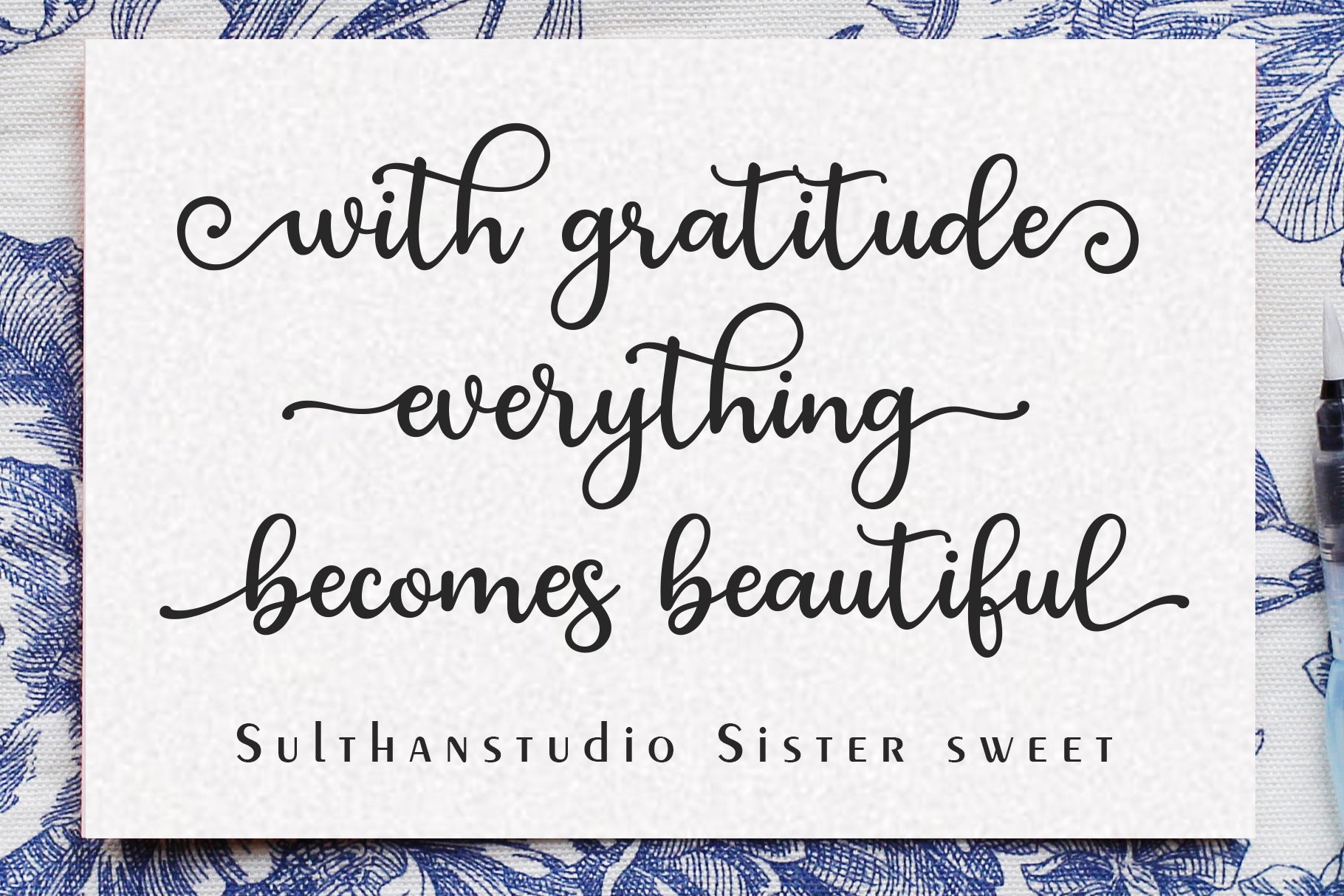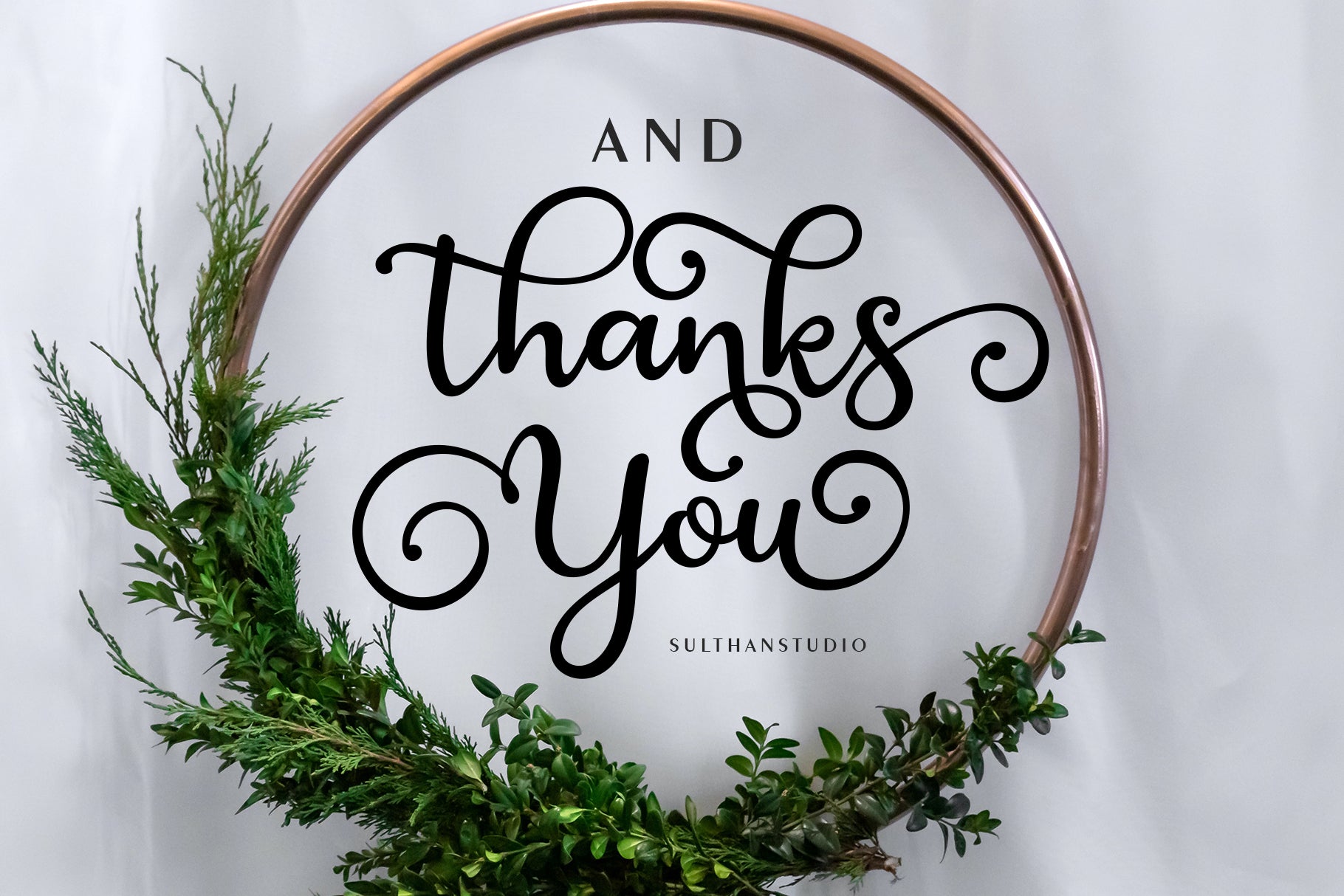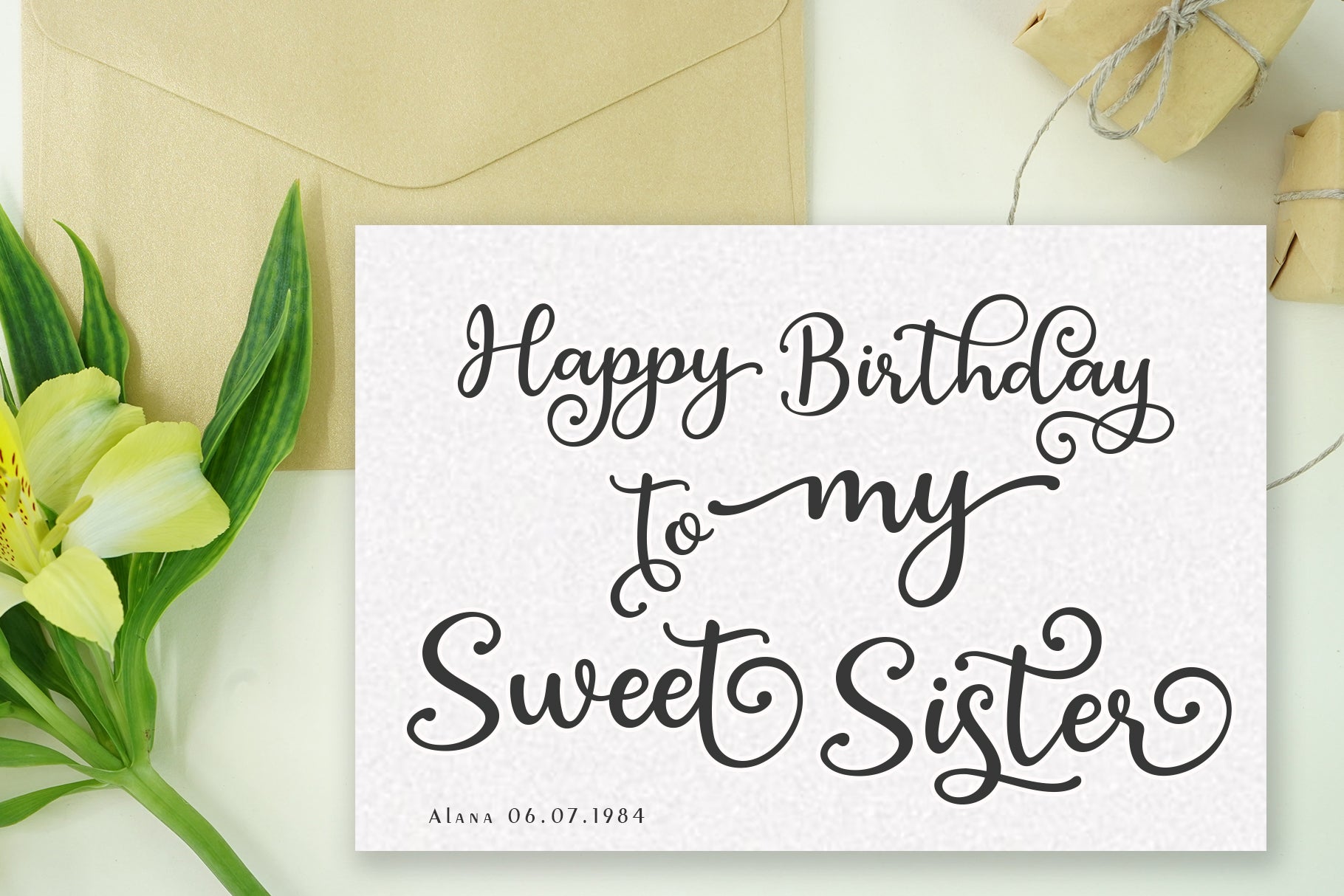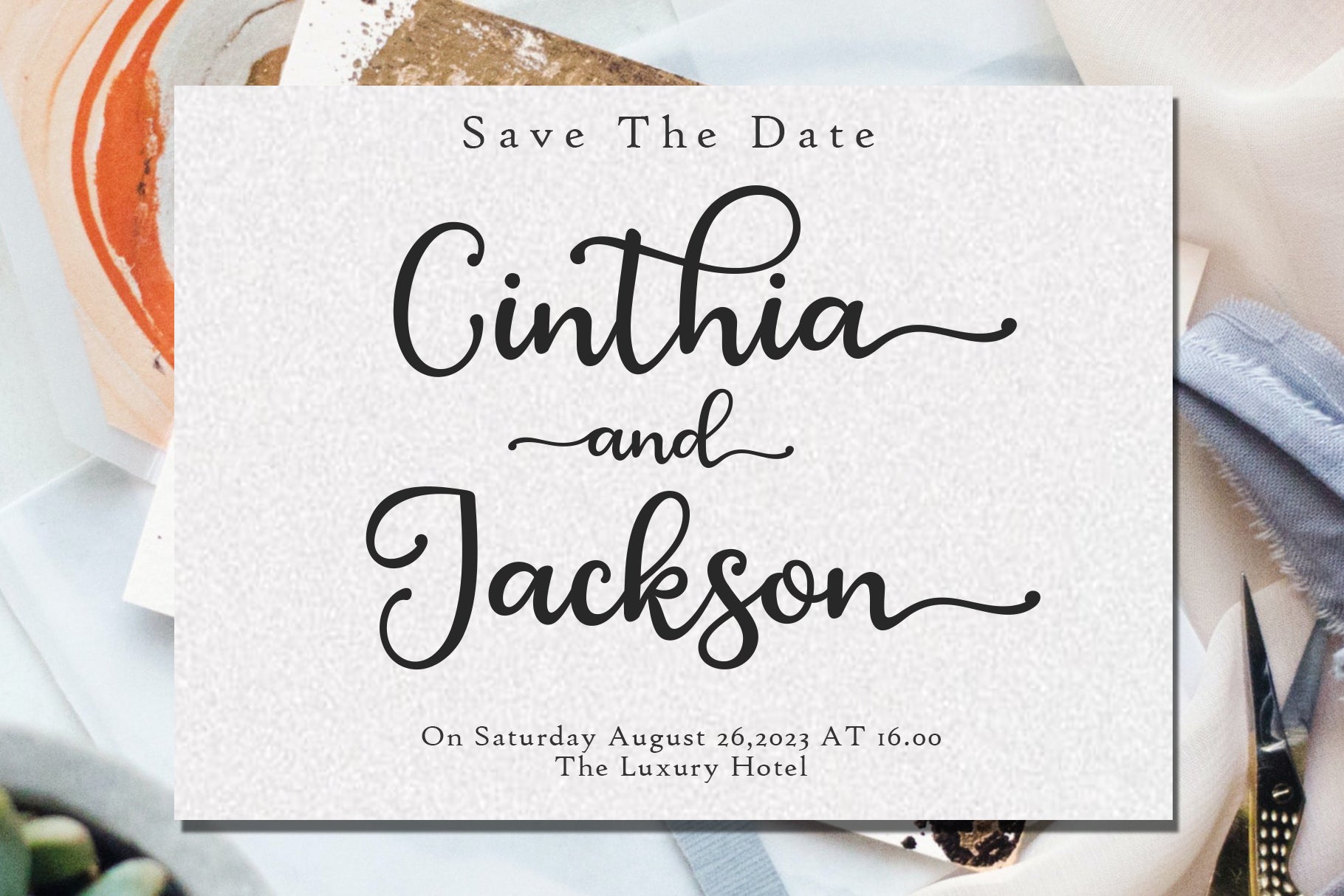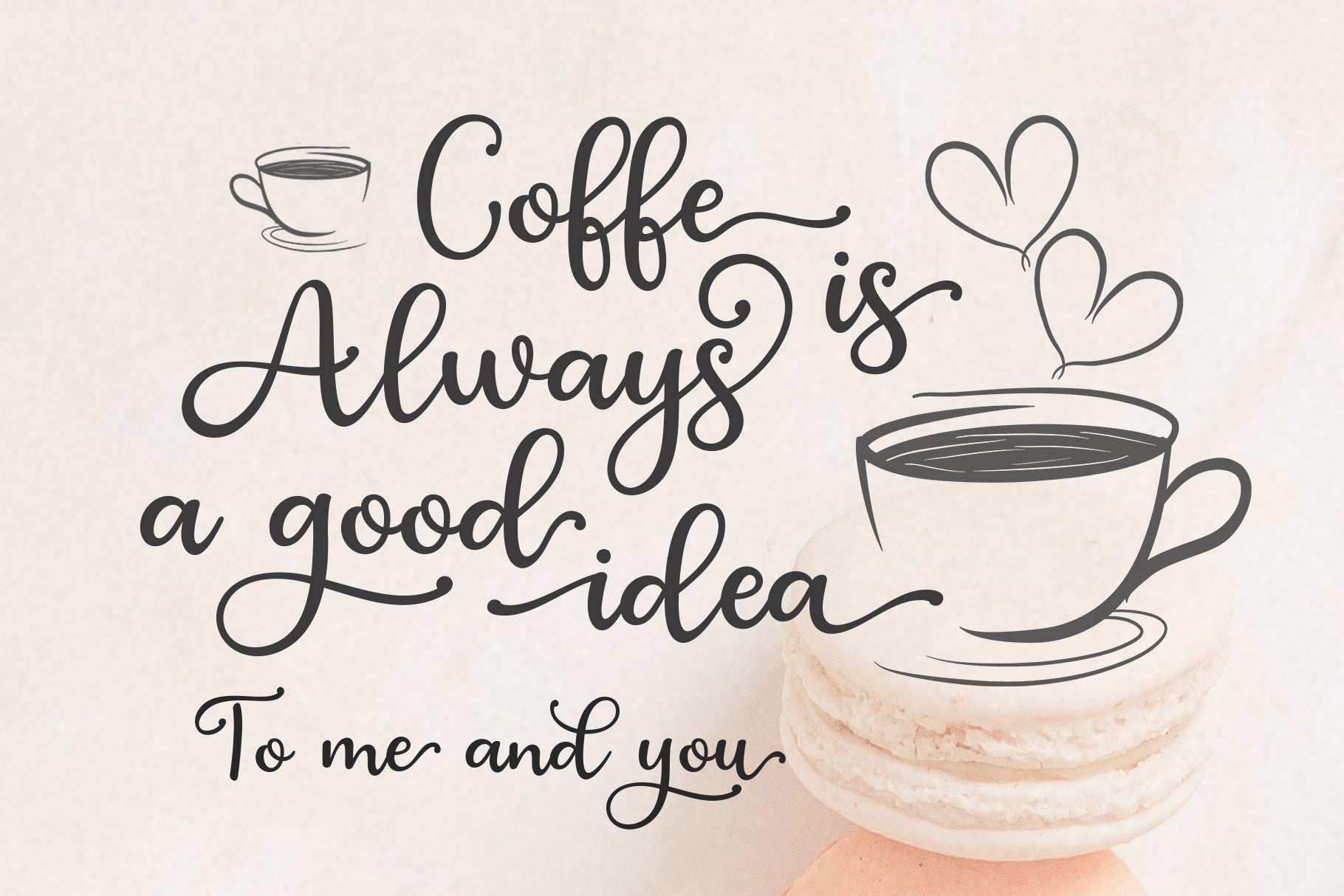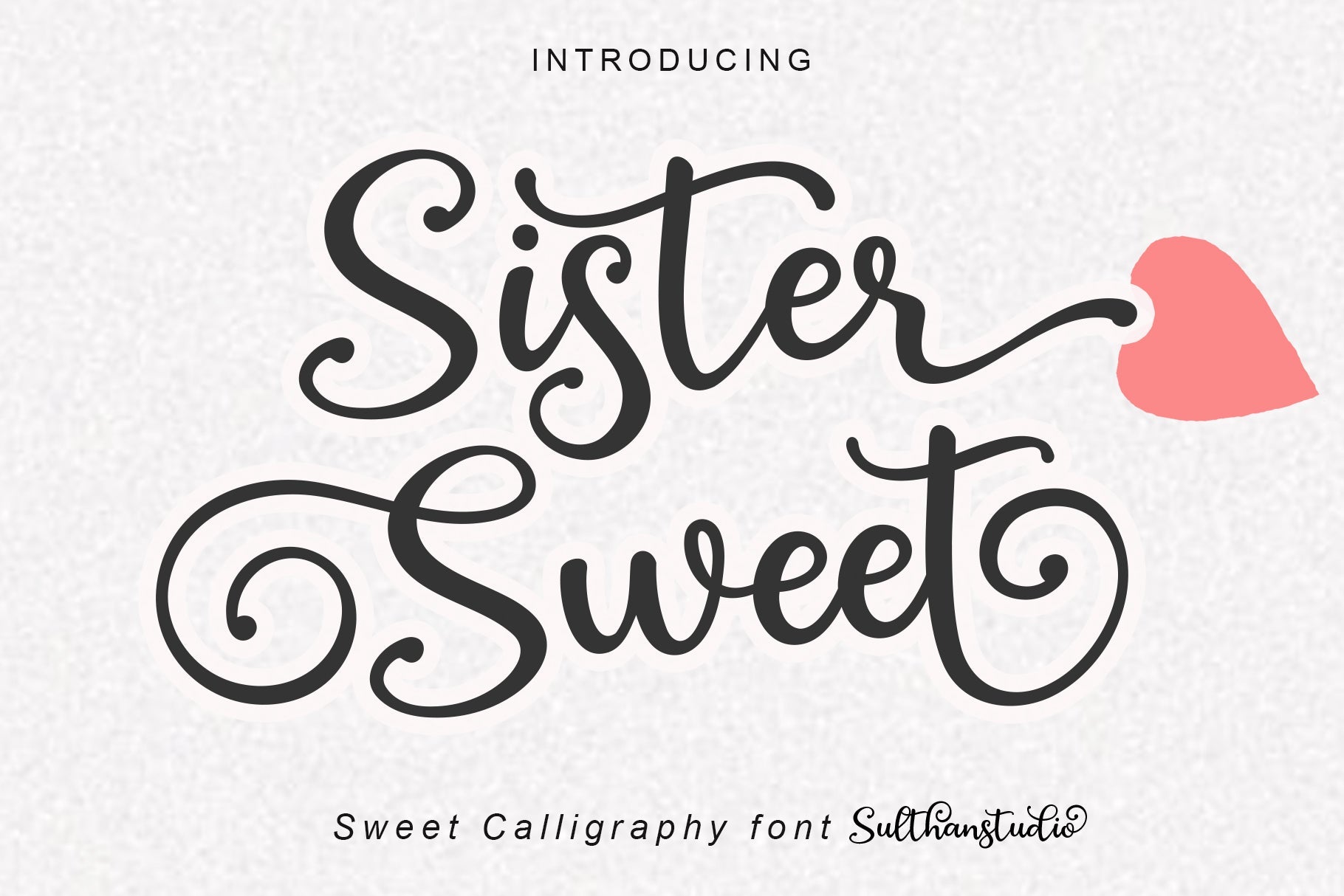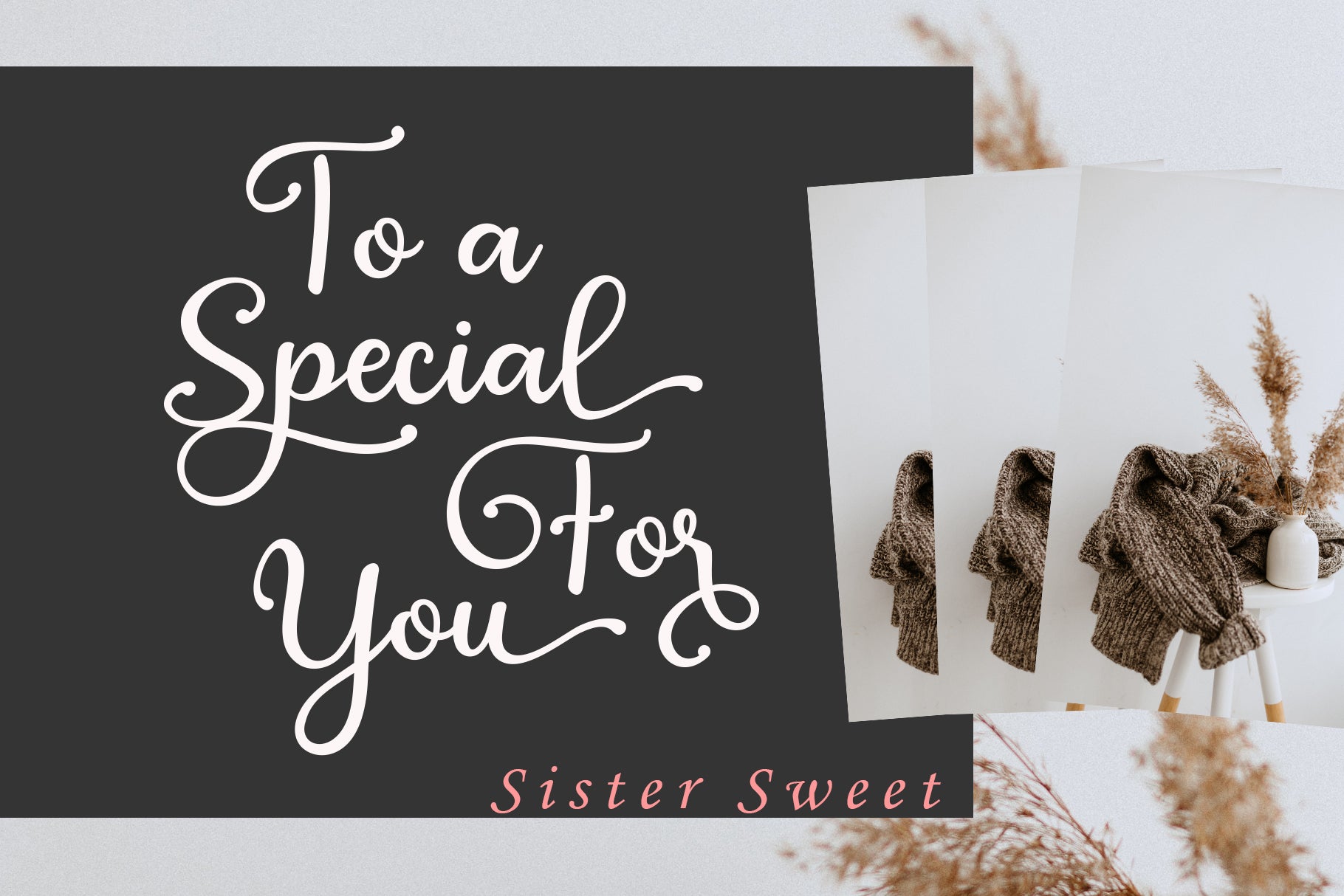
Sister Sweet
About Sister Sweet
Sister Sweet is an amazing handcrafted script font that we created in a style that is simple yet light but very classy for those of you who do work and crafts. It’s perfect for all kinds of work you do with multiple purposes like stickers, logos, wedding invitations, titles, t-shirts, letterheads, signage, labels, news, posters, badges, etc. Files include: Sister sweet.otf Sister sweet..ttf OpenType features with alternative styles, ligatures, and multiple language support. To enable the OpenType Stylistic alternative, you need a program that supports OpenType features such as Adobe Illustrator CS, Adobe Indesign & CorelDraw X6-X7, Microsoft Word 2010 or later. How to access all alternative characters, using the Windows Character Map with Photoshop: https://www.youtube.com/watch?v=Go9vacoYmBw How to access all alternative characters using Adobe Illustrator: http://youtu.be/iptSFA7feQ0